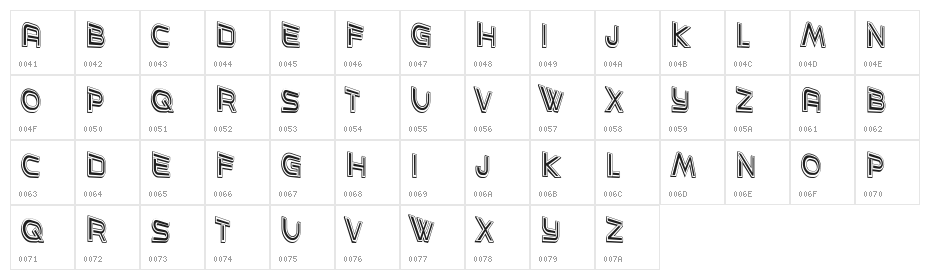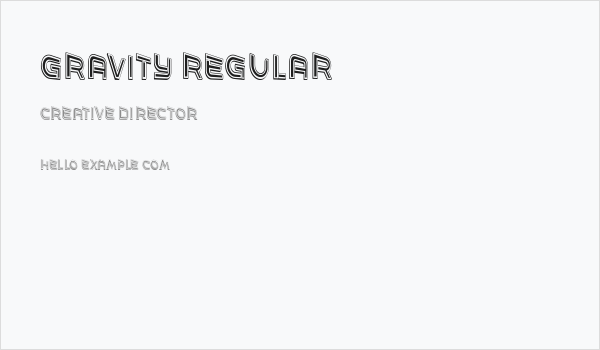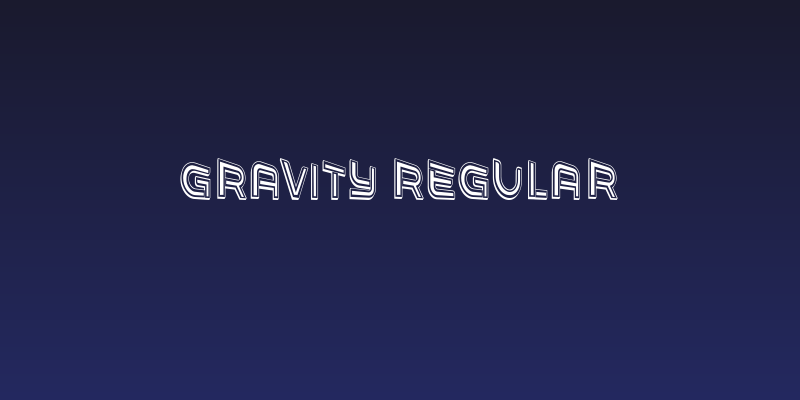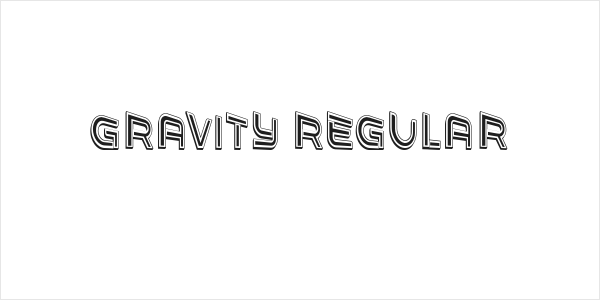
Gravity Regular Font
Gravity Regular Description
This font features a bold, geometric design with a three-dimensional effect. Each character is outlined with a double line, creating a sense of depth and movement. The uppercase letters are uniform in height, with sharp angles and clean lines that give it a modern and futuristic appearance. The font's structure is consistent, with each letter maintaining a similar width and spacing, contributing to its cohesive look. The absence of serifs and the emphasis on straight lines and angles make it suitable for contemporary design projects. Its unique style is eye-catching and can be used to create a strong visual impact.
| Proposed Projects | Ideal for branding, posters, headlines, and any project requiring a modern, impactful font. |